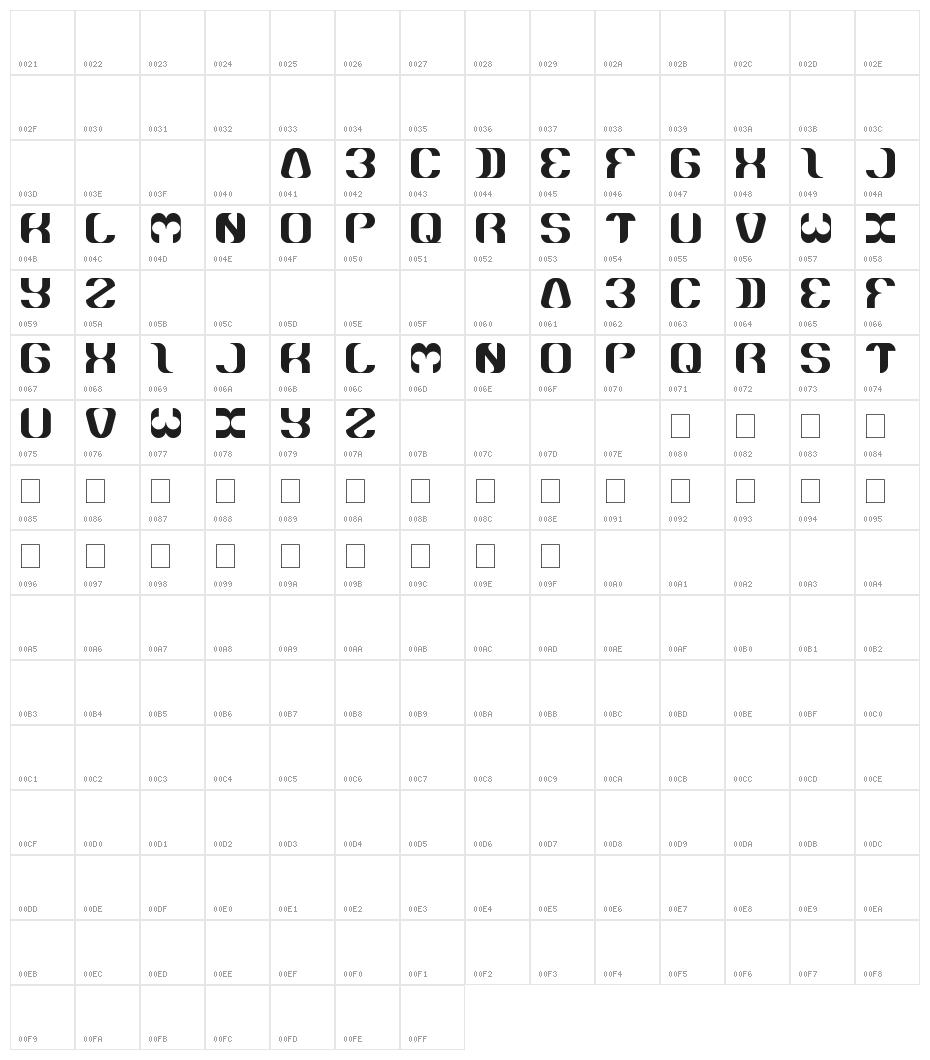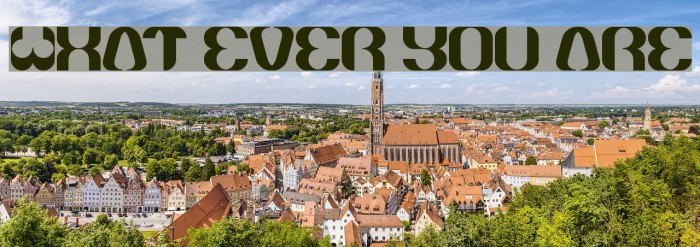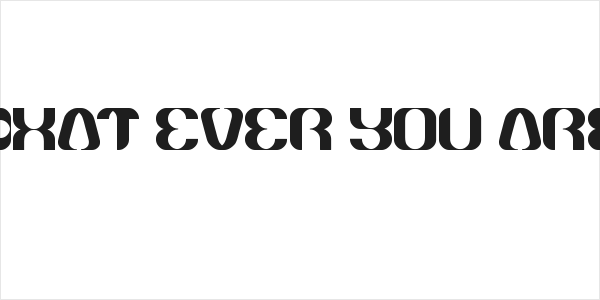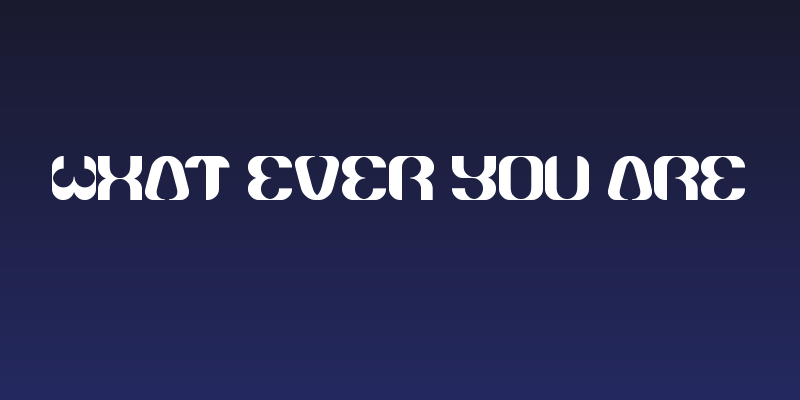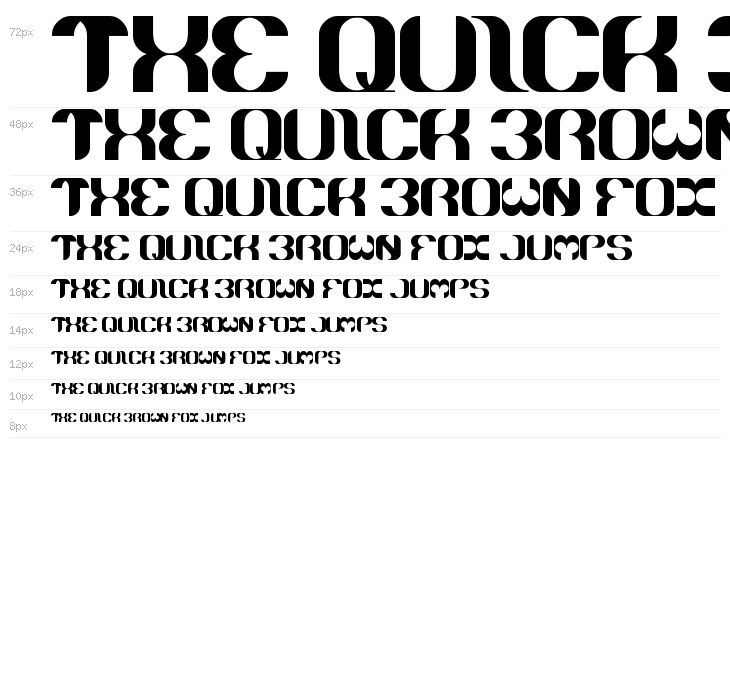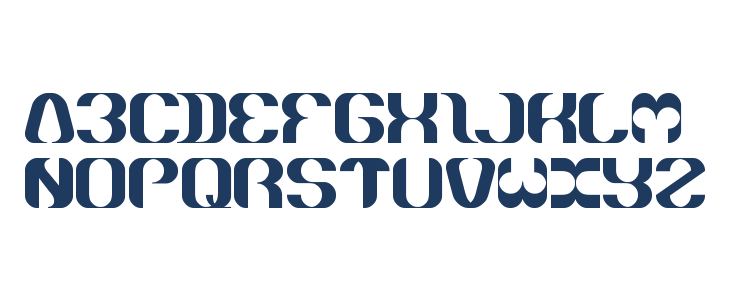
what ever you are Font
what ever you are Description
This font features a bold and modern design with a unique geometric style. The characters are constructed with thick, solid strokes and have a futuristic appearance. The design incorporates sharp angles and cut-out sections, creating a dynamic and eye-catching look. The uppercase letters are uniform in height, while the overall style maintains a consistent weight throughout. This font is ideal for projects that require a strong visual impact and a contemporary feel.
| Proposed Projects | Ideal for branding, posters, headlines, and digital media that require a strong, modern aesthetic. |